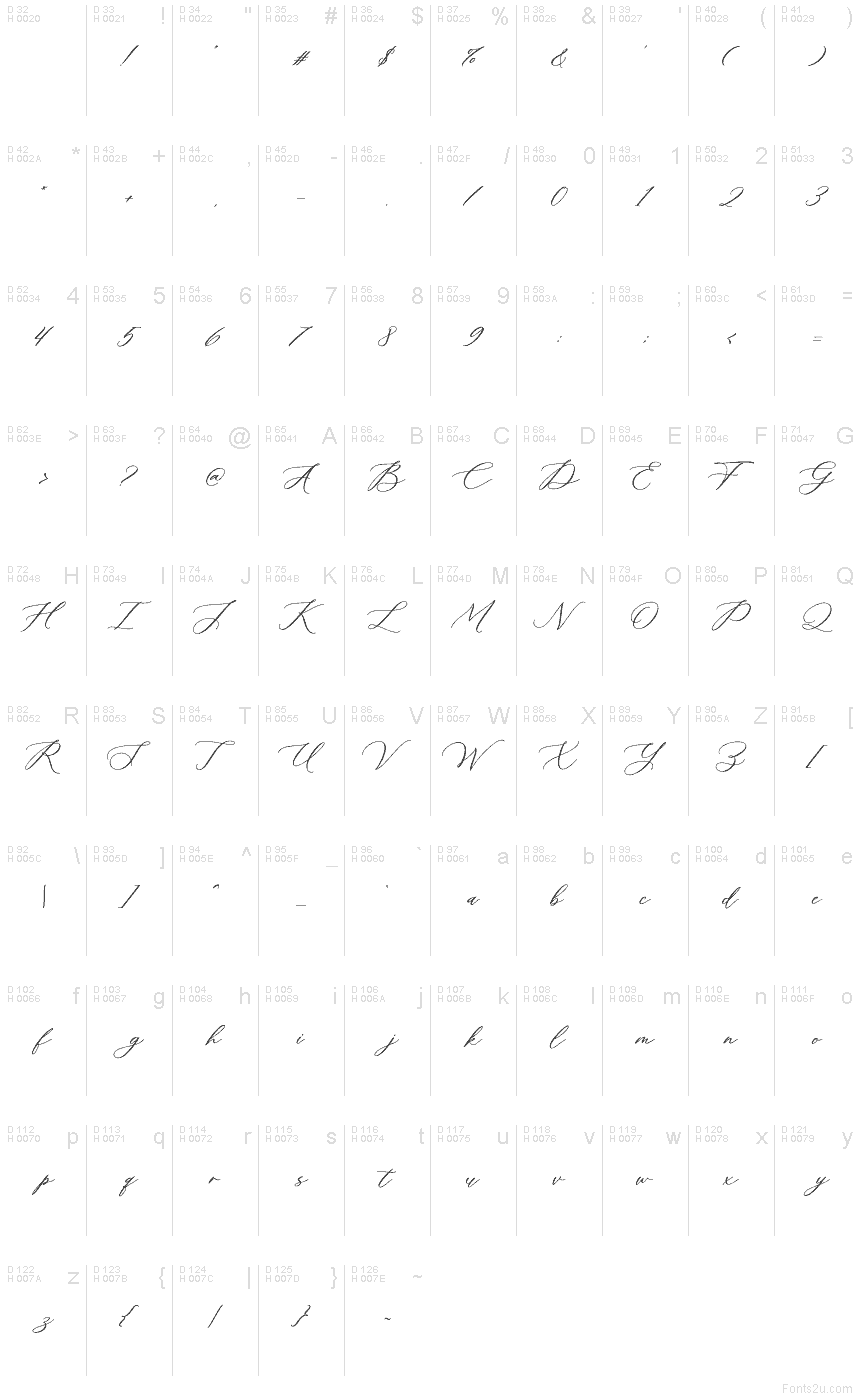
Meldyte
Meldyte font by RantautypeStudio is a light calligraphy typeface that embodies elegance, natural flow, and sophistication. Capturing a personal touch with a signature style, this graceful font offers both old-school and modern calligraphy inspirations for magical designs with an enchanting spark.
This free calligraphy font is excellent for photographs and social media posters. Other great suggested use ideas are branding projects, wedding invitations, product packaging, quotes, book or magazine titles/covers, logos or clothing designs. Cards of all sorts will also look stunning with Meldyte; greetings cards as well as business cards.